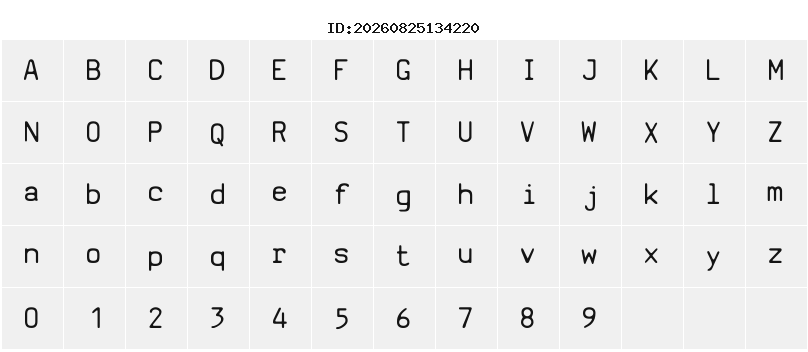
• Font Name: SV Basic Manual
• Font Style: Book
• Full Font Name: SV Basic Manual
• Designer: Johan Winge
About SV Basic Manual.ttf
SV Basic Manual.ttf is a modern, elegant sans-serif font designed for ultimate readability and visual harmony. Perfect for branding, headlines, web design, and print materials.